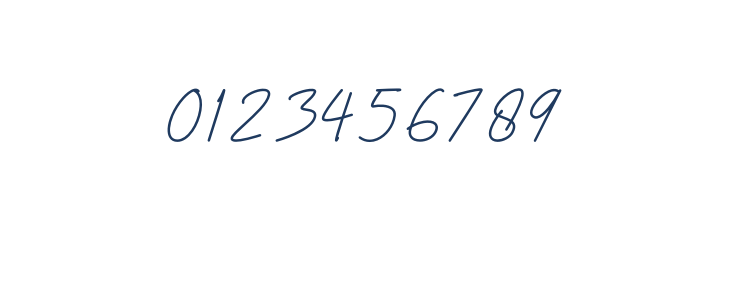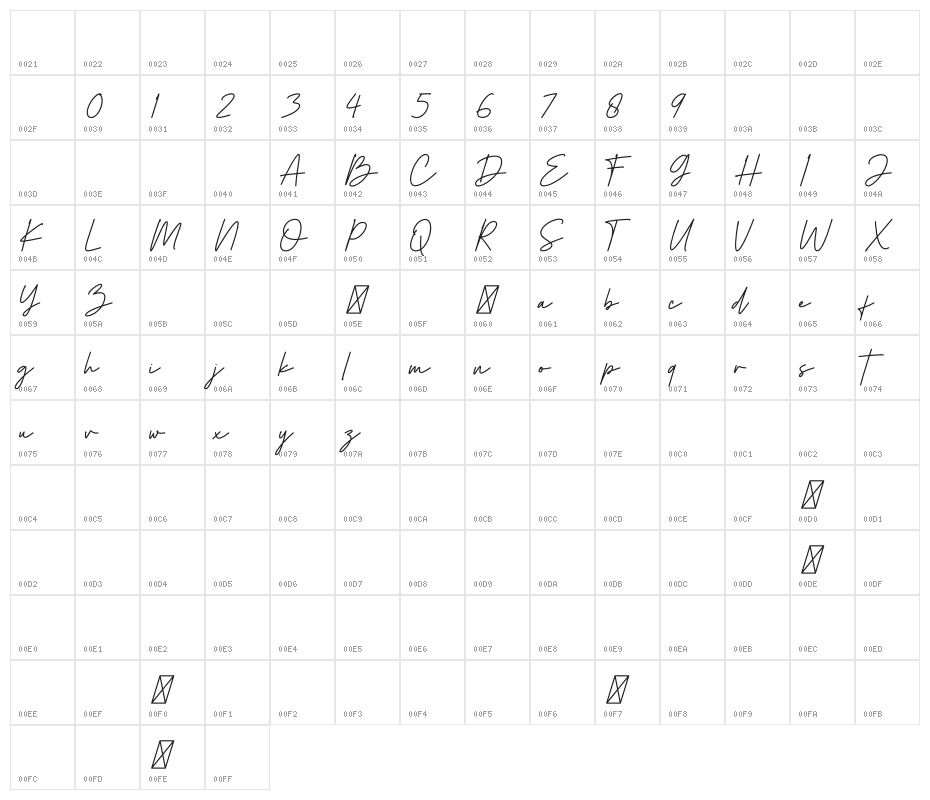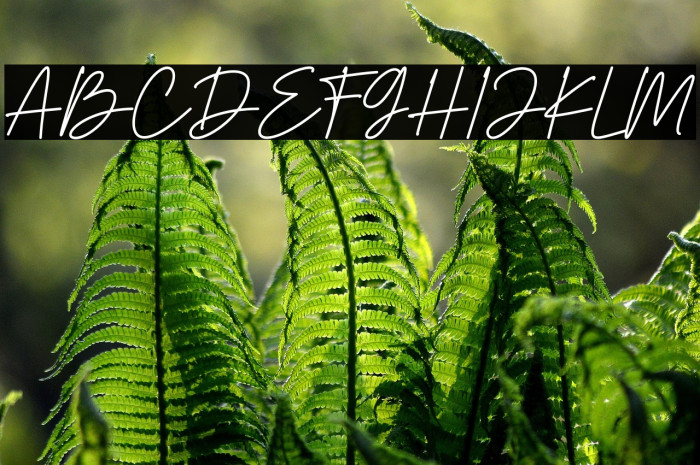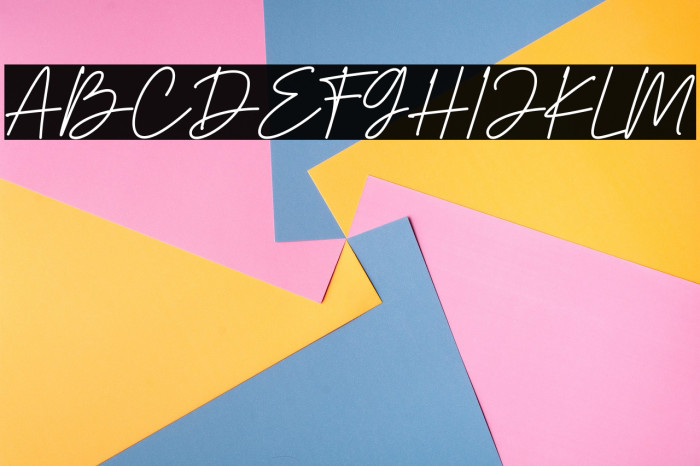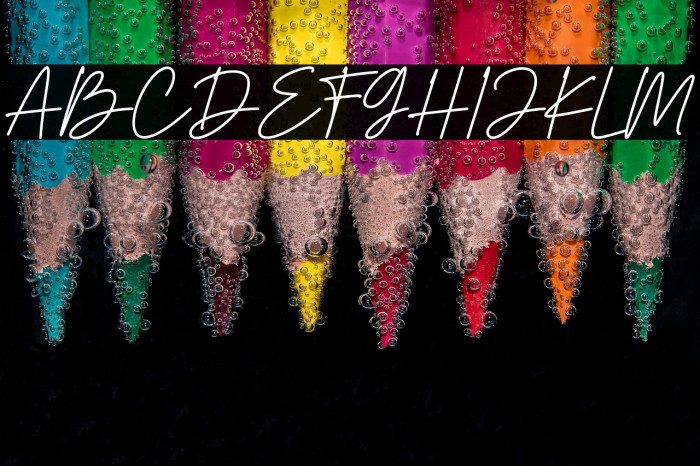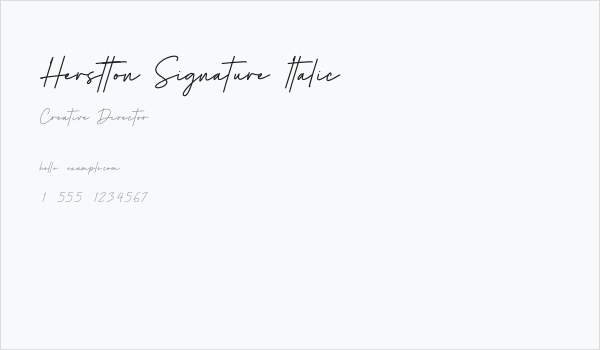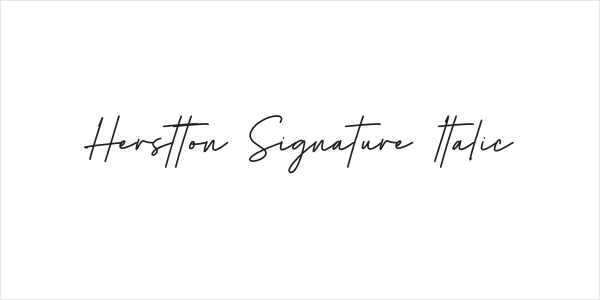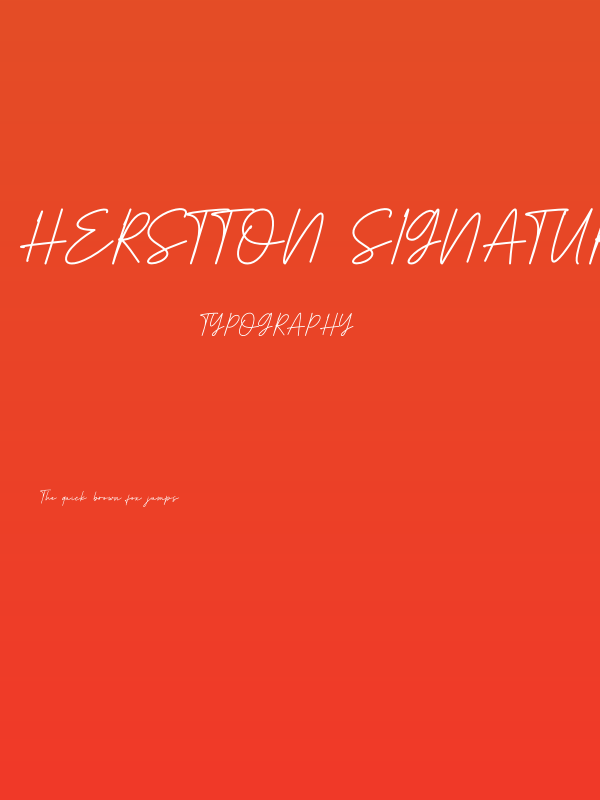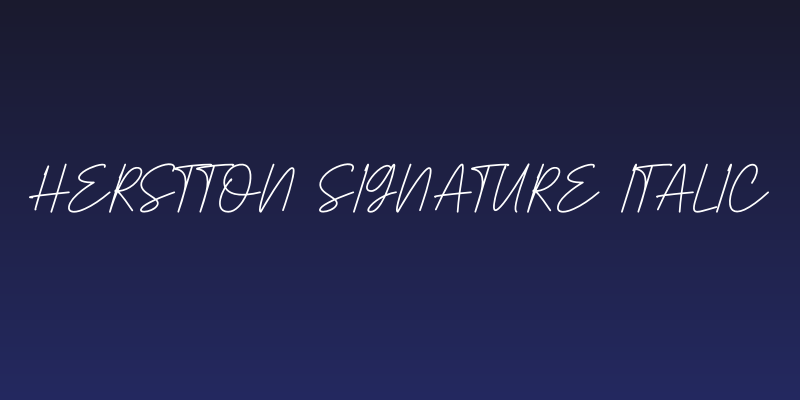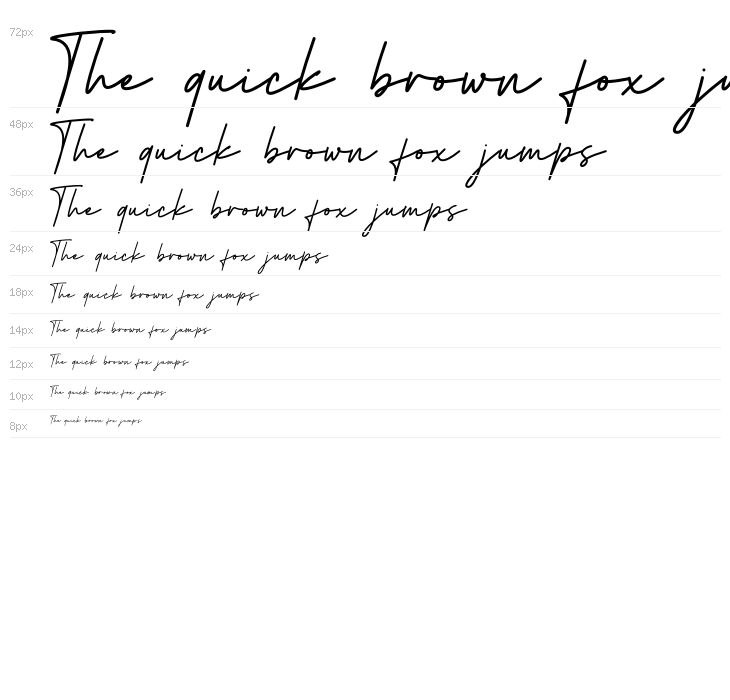
Herstton Signature Italic Font
Herstton Signature Italic Description
This font exudes a modern and elegant handwritten style, characterized by its fluid and continuous strokes that mimic natural handwriting. The letters are slightly slanted, adding a dynamic and sophisticated touch. The uppercase letters are bold and prominent, while the lowercase letters maintain a consistent flow, enhancing readability. Numbers are clear and distinct, complementing the overall aesthetic. Special characters are seamlessly integrated, maintaining the font's cohesive look. This font is ideal for projects that require a personal and stylish touch, such as invitations, branding, and editorial design.
| Proposed Projects | Ideal for invitations, branding, editorial design, and any project needing a personal touch. |